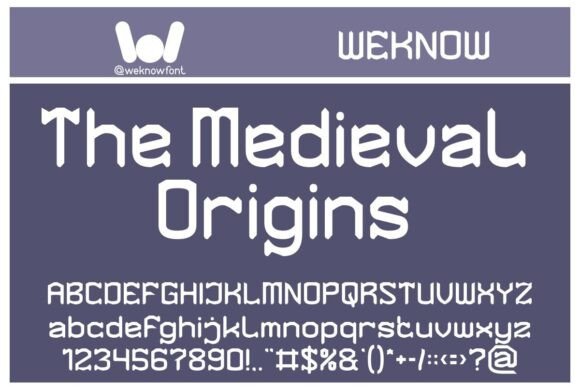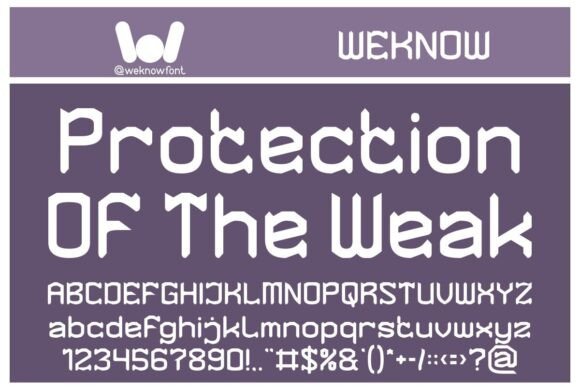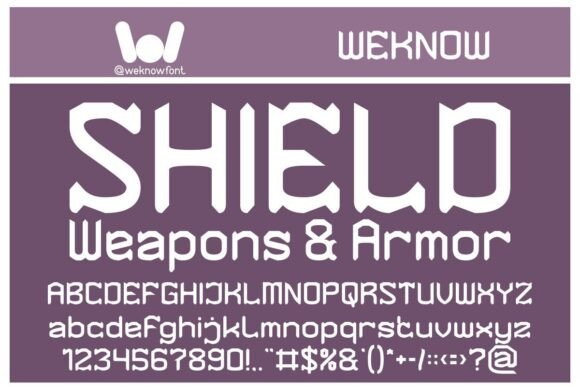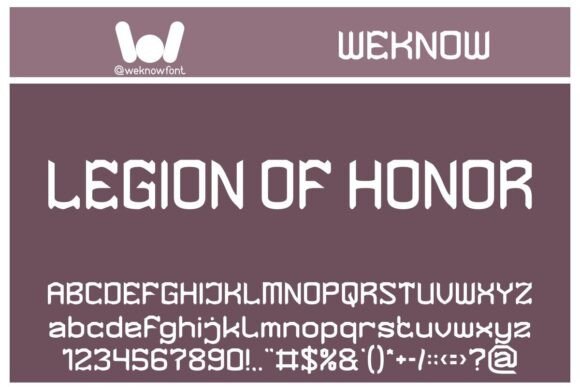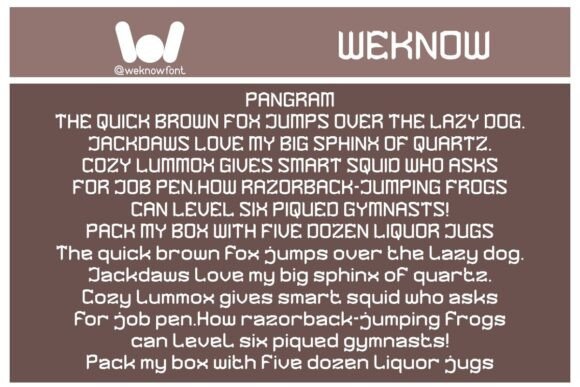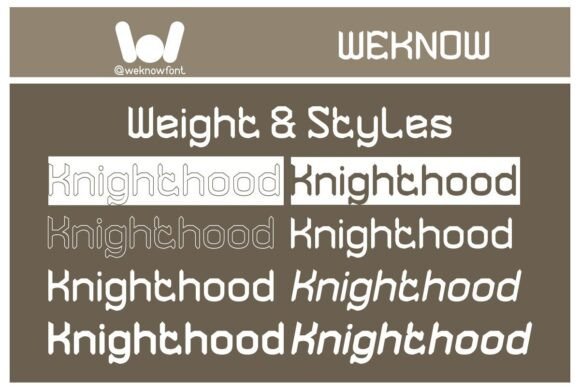
Introduction to Knighthood Font Font
Fonts play a crucial role in design, and the Knighthood Font font is a typeface that brings both character and versatility to any project. Whether you’re working on a branding project, a website, or a print design, the Knighthood Font font offers a unique style that can elevate your work.
Immerse yourself in the realm of whimsy and fantasy with the Knighthood font.
This modern Gothic marvel skillfully melds elements of the medieval and the futuristic with its monolinear construction Stylized terminals add a unique flair, culminating in a stunningly angular and geometric visual experience.
Key Features of Knighthood Font Font
Why Choose Knighthood Font Font?
The Knighthood Font font is more than just a typeface – it’s a design tool that helps you communicate your message with style and clarity. Its unique character set and versatile design make it suitable for a wide range of applications, from elegant invitations to bold headlines.
With its carefully crafted letterforms and balanced proportions, the Knighthood Font font ensures readability and visual appeal across all mediums.
What makes Knighthood Font font special?
The Knighthood Font font stands out with its unique design, exceptional readability, and versatility across various design applications.